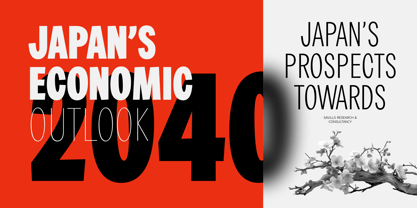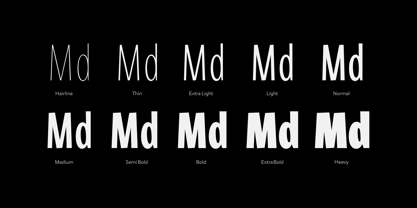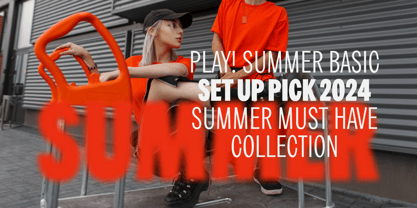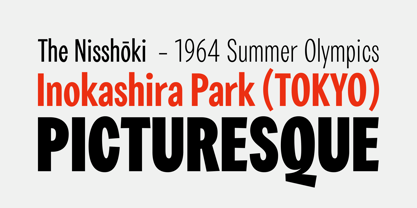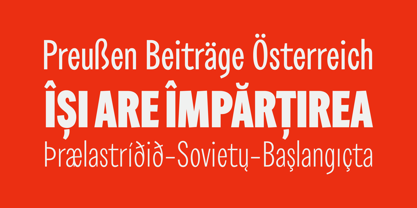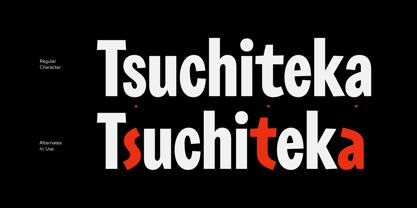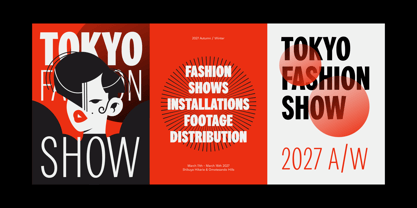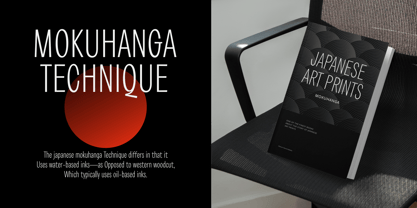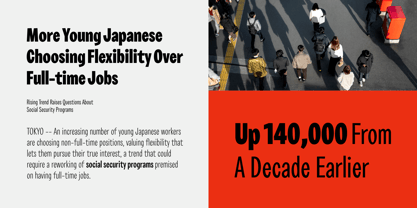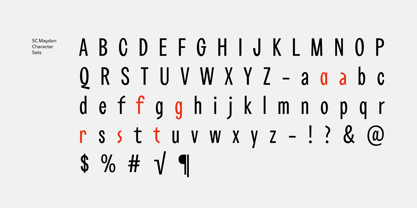
SC Maydon
SC Maydon is a sleek and contemporary sans serif typeface inspired by the refined aesthetics of Japanese design. Clean lines and balanced proportions give it a minimalist, modern feel, while subtle geometric touches and squared forms echo the elegance of traditional Japanese signage and typography. Its versatility makes it perfect for branding, packaging, posters, or digital interfaces that seek a harmonious blend of modern simplicity and cultural flair. SC Maydon supports around 150+ languages in Latin and Cyrillic script.
Family overview:
• 10 weights (from Hairline to Heavy)
• Extended Latin
• 450+ glyphs
• Variable Font
• 150+ languages
OpenType Features:
• Localized Forms
• Subscript and scientific inferiors
• Numerators and Denominators
• Fractions
• Tabular Figures
• Oldstyle Figures
• Case-Sensitive Forms
• Standard and Discretionary Ligatures
• Stylistic Alternates